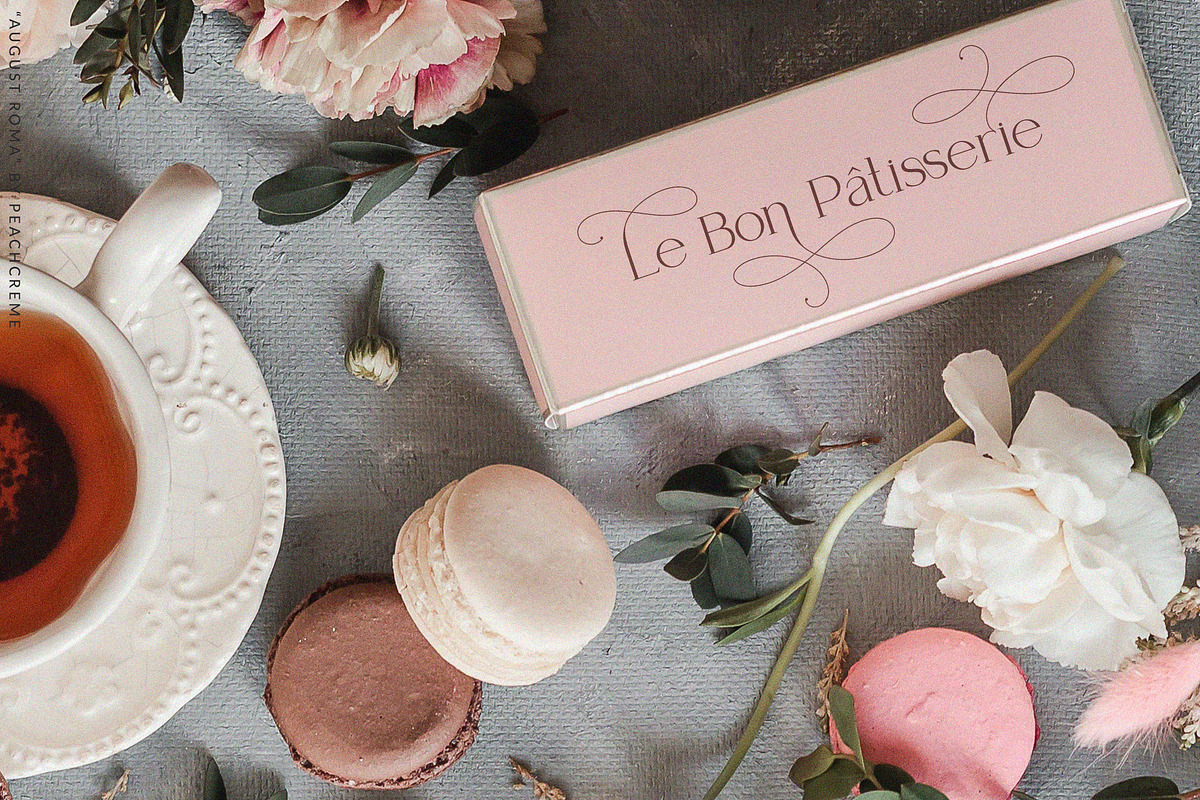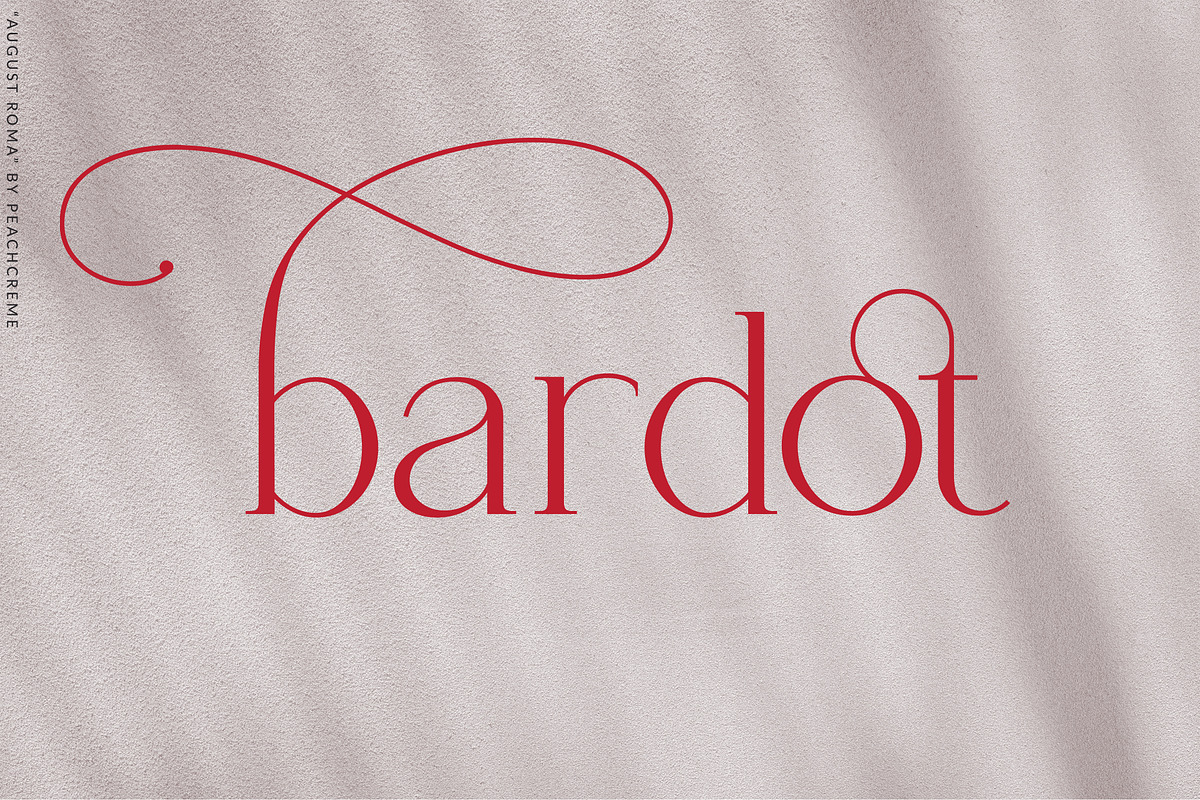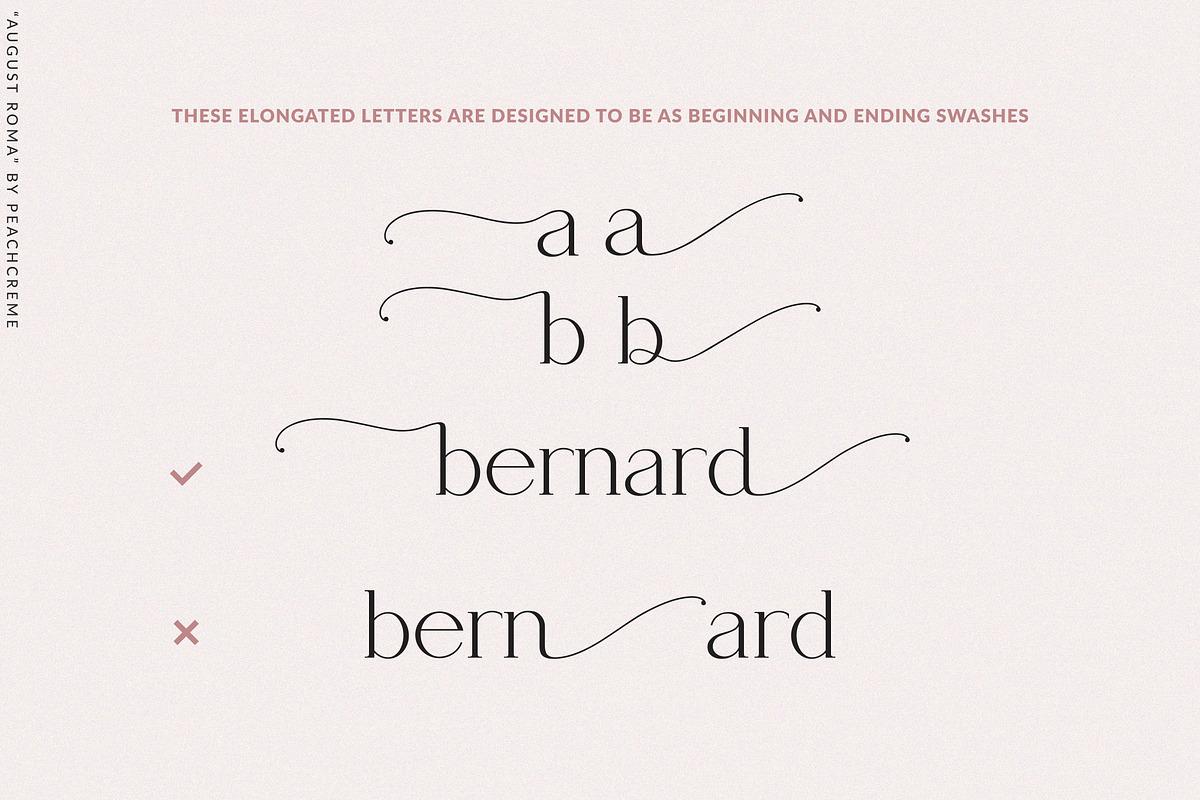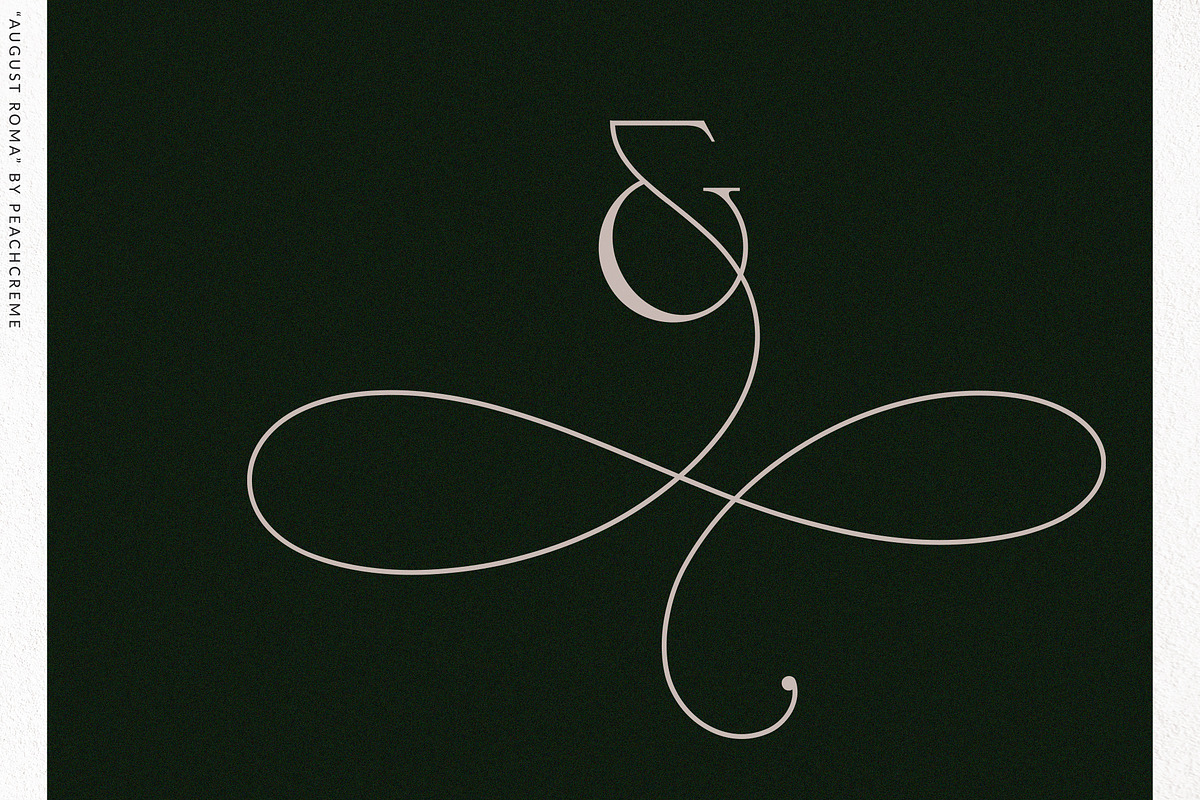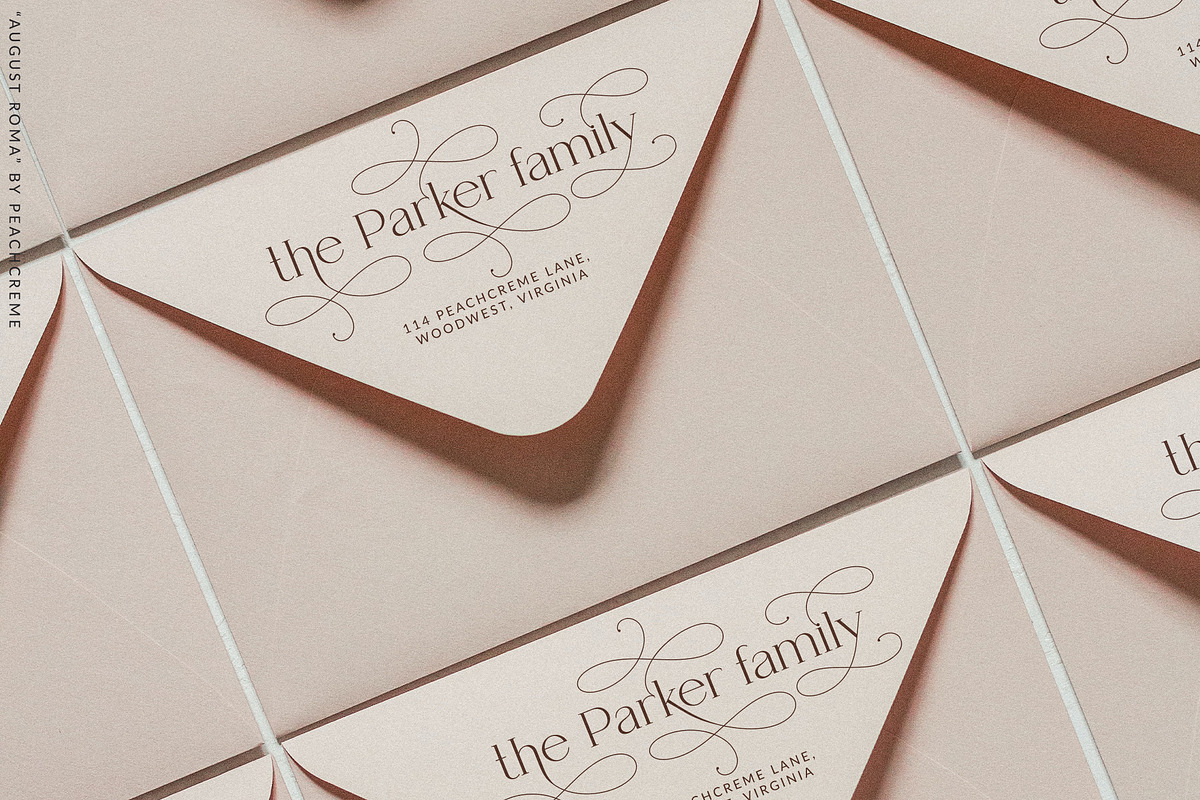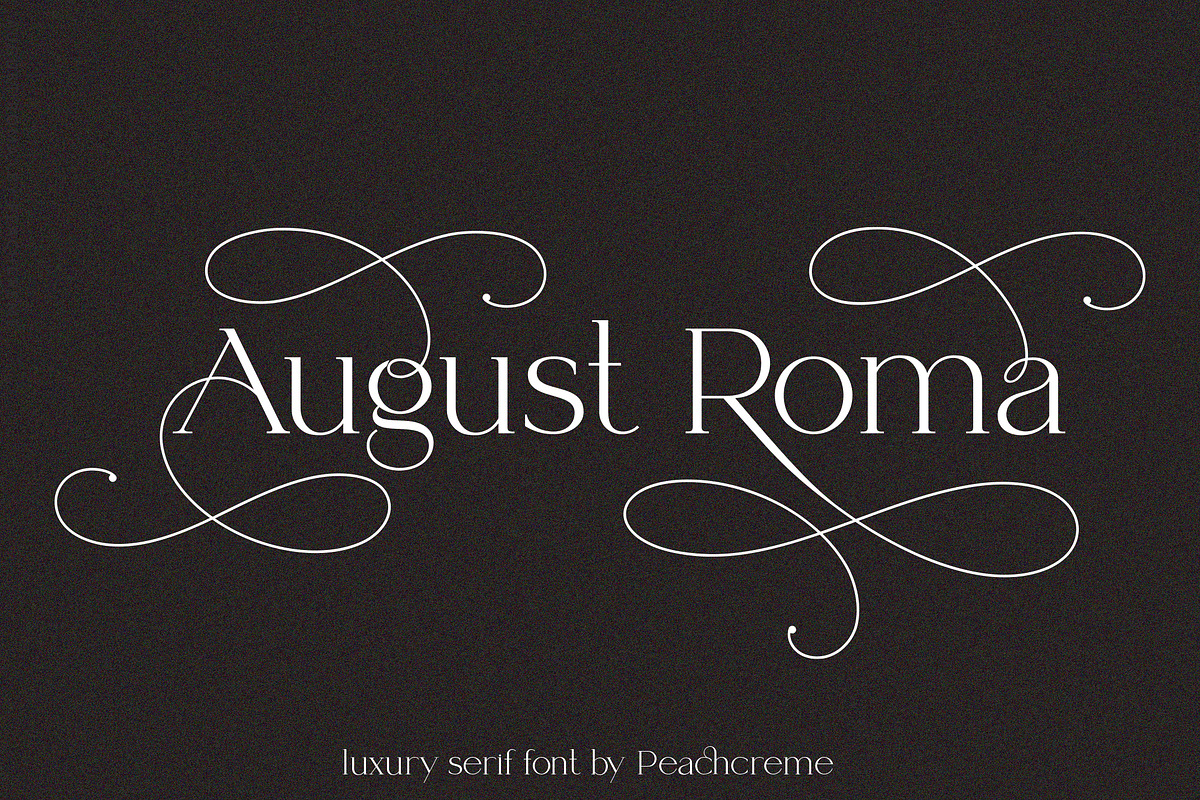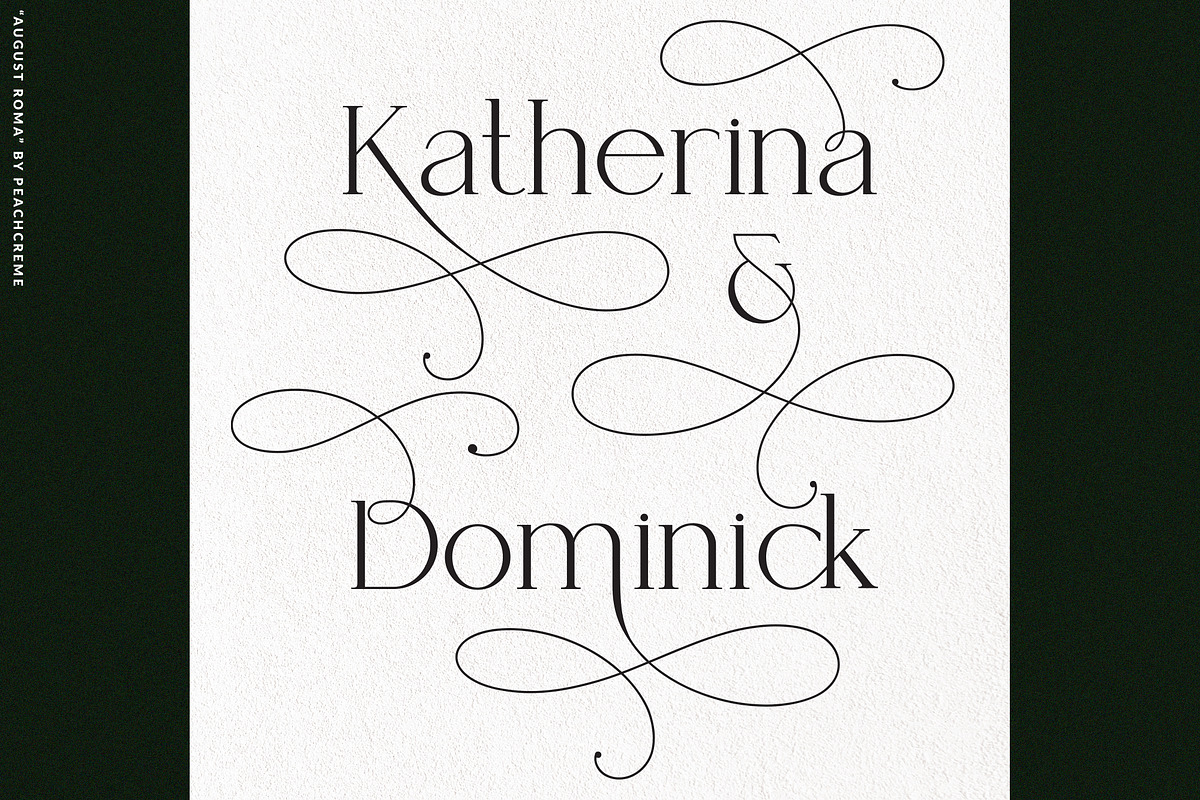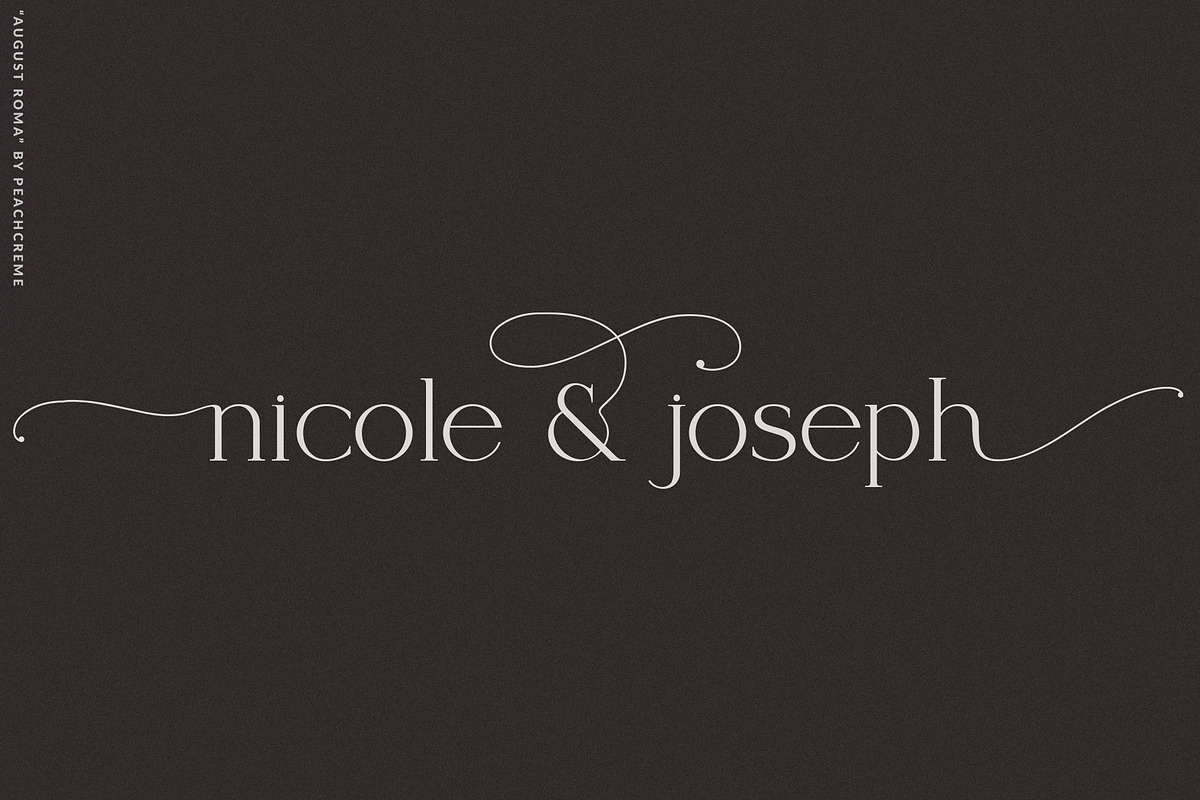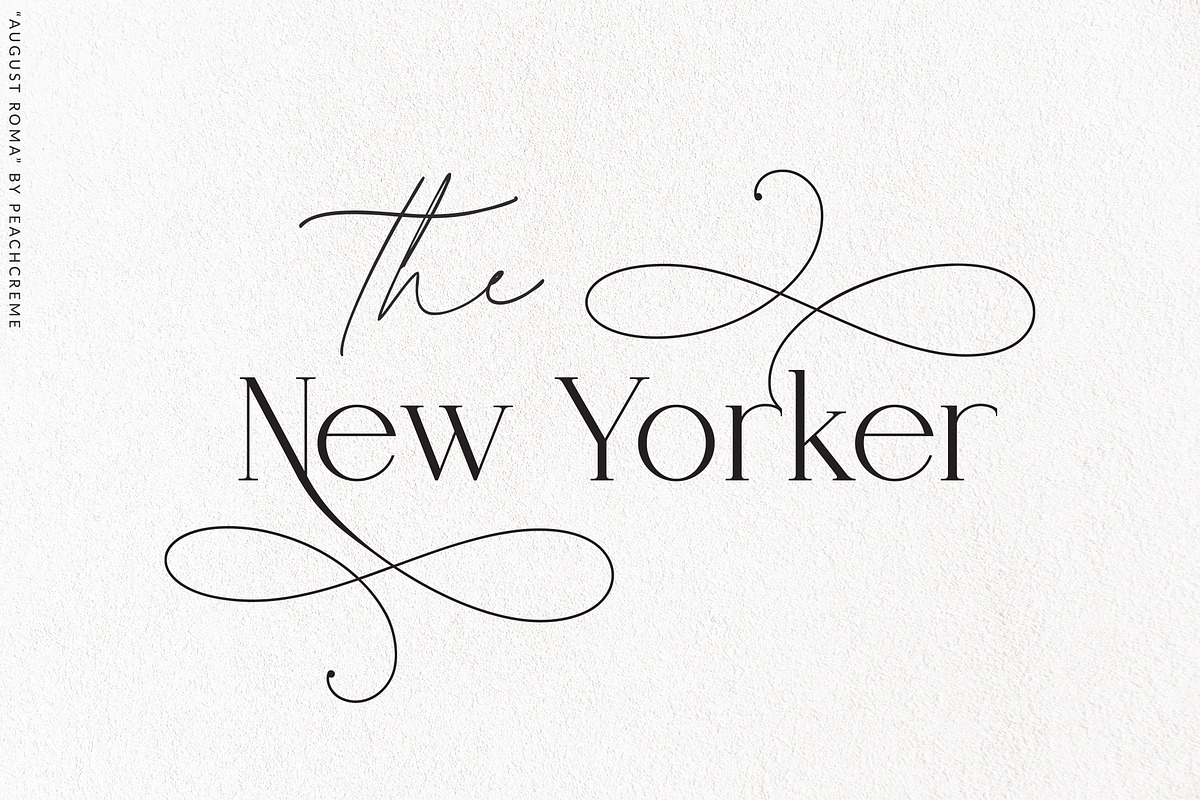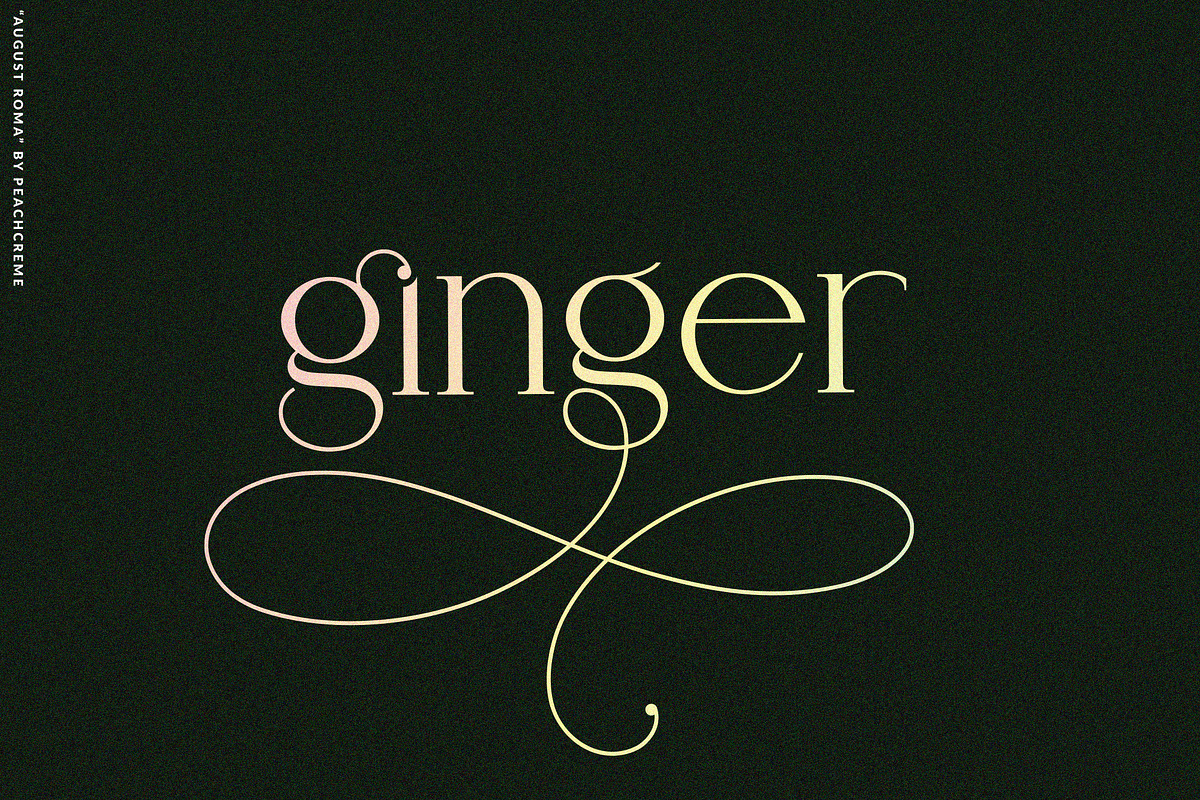
August Roma // luxury serif font
August Roma Serif - born to be your fav elegant font. Create stunning branding, sleek wedding invites, versatile holiday cards, and sweet book covers.
August Roma Serif has all uppercase, lowercase, ampersand, numeral swashes.